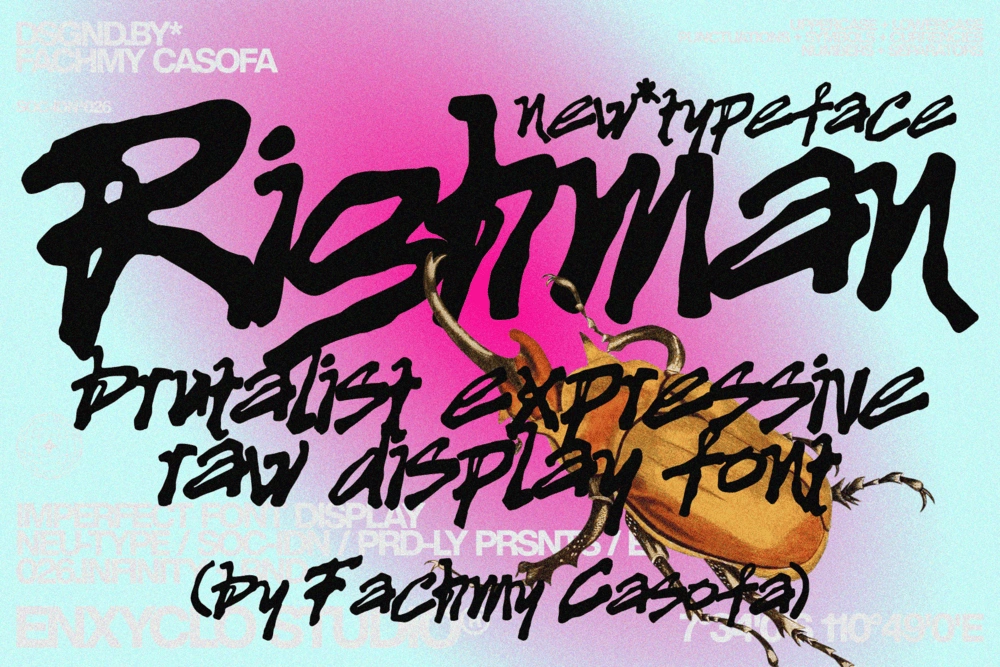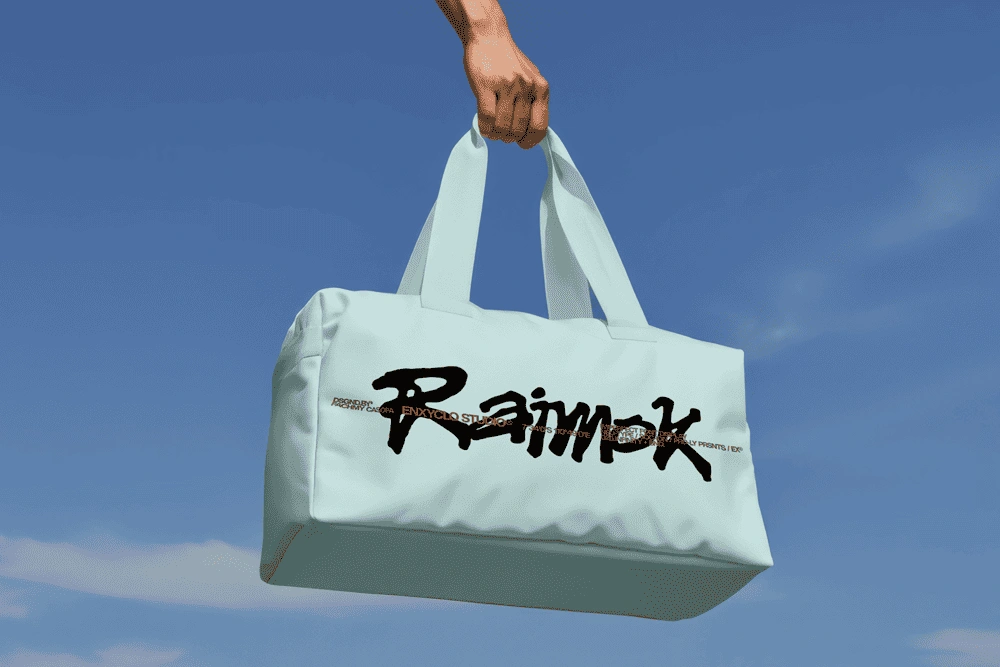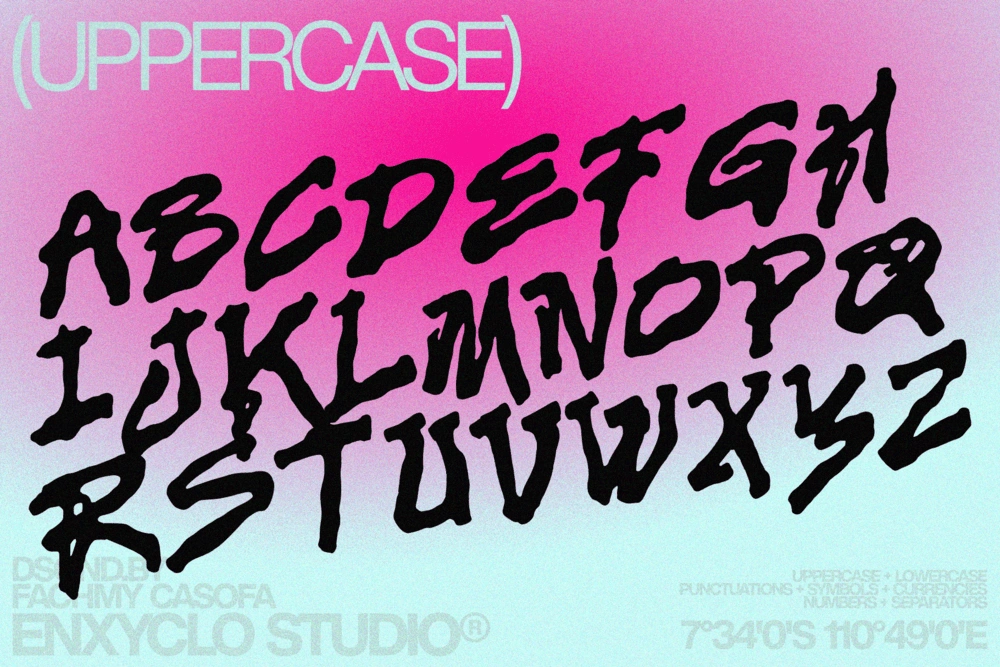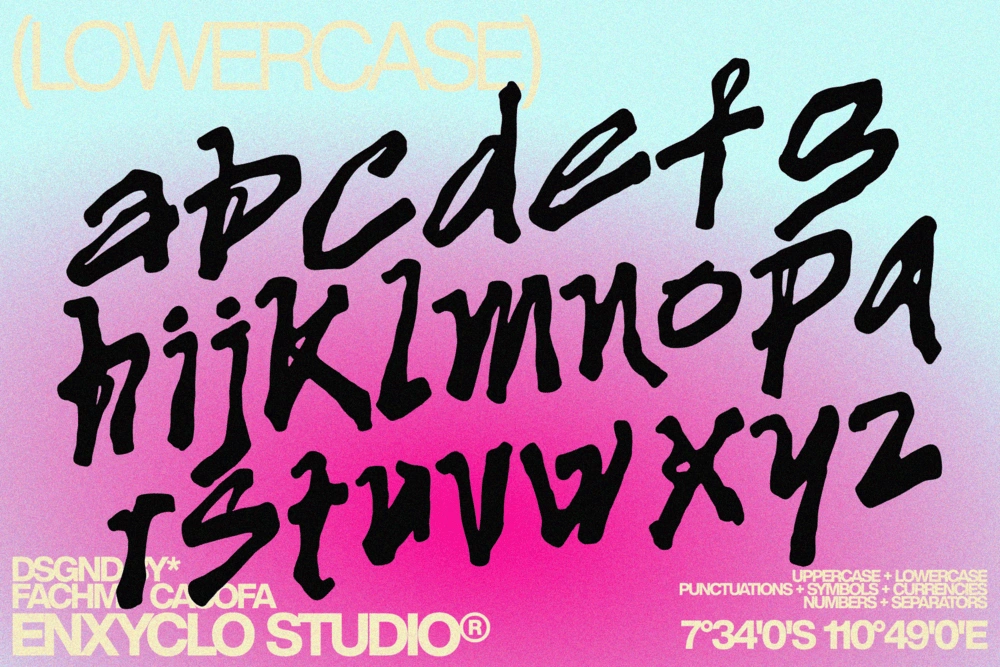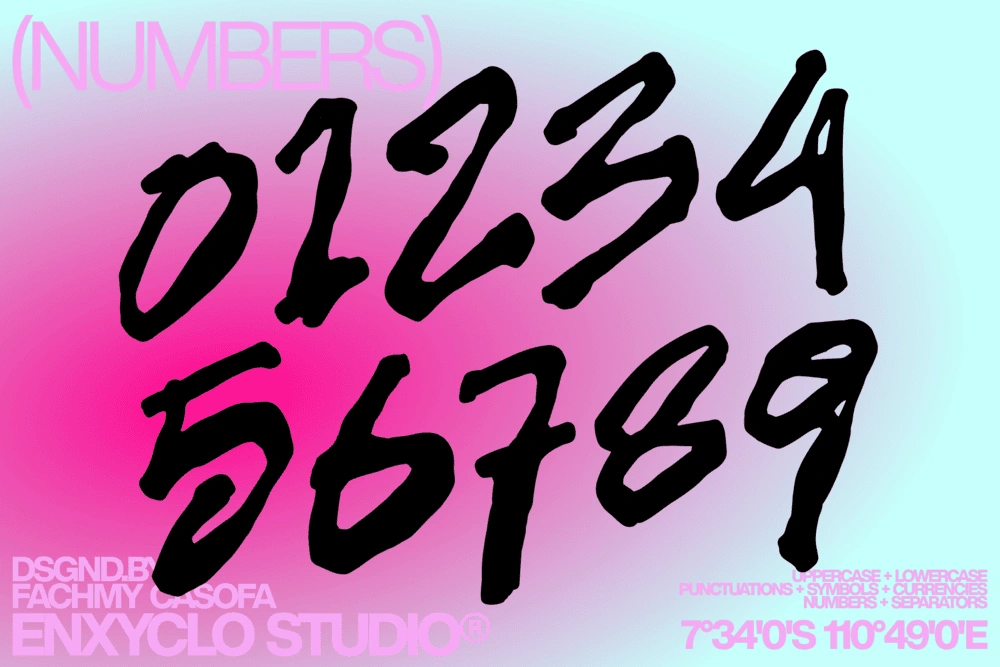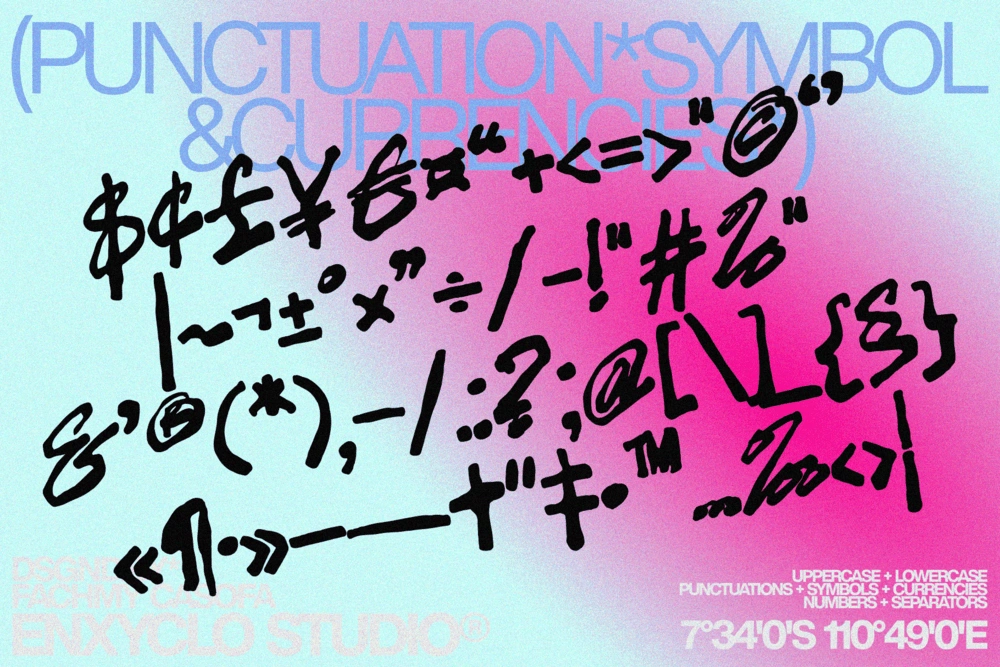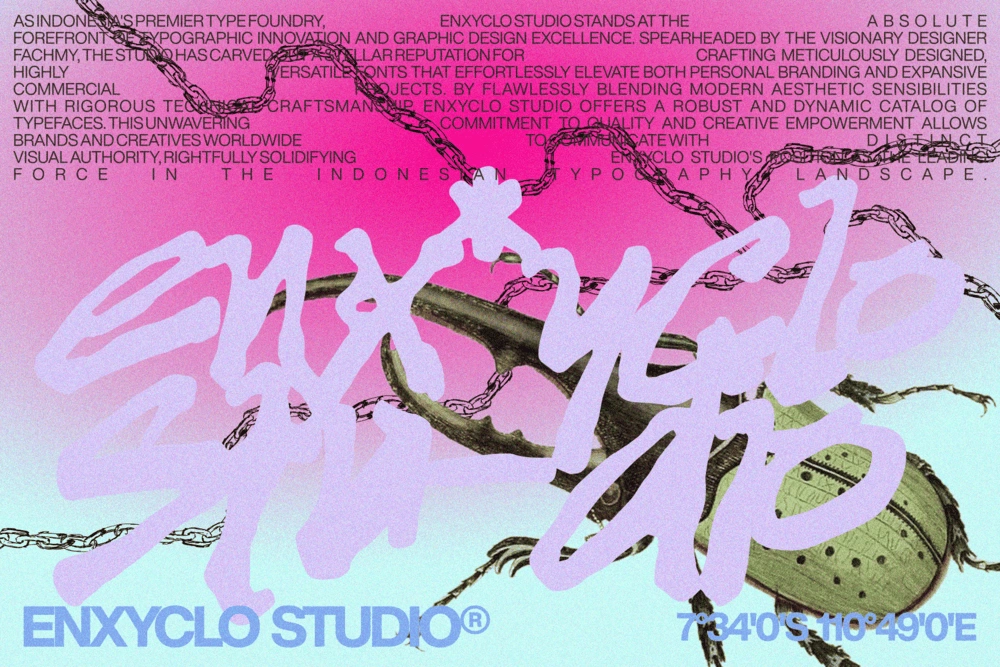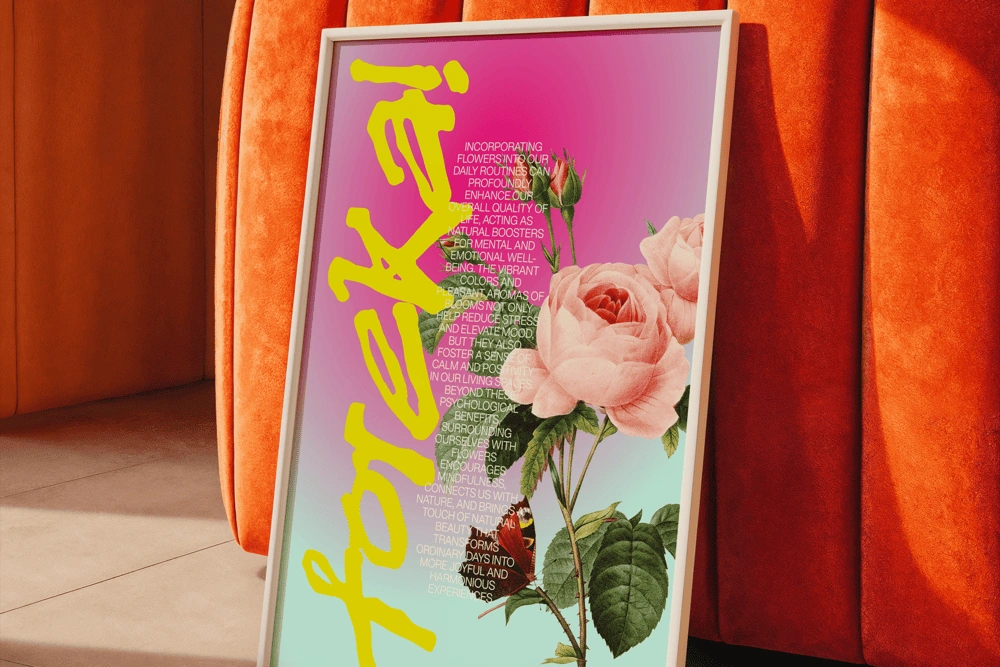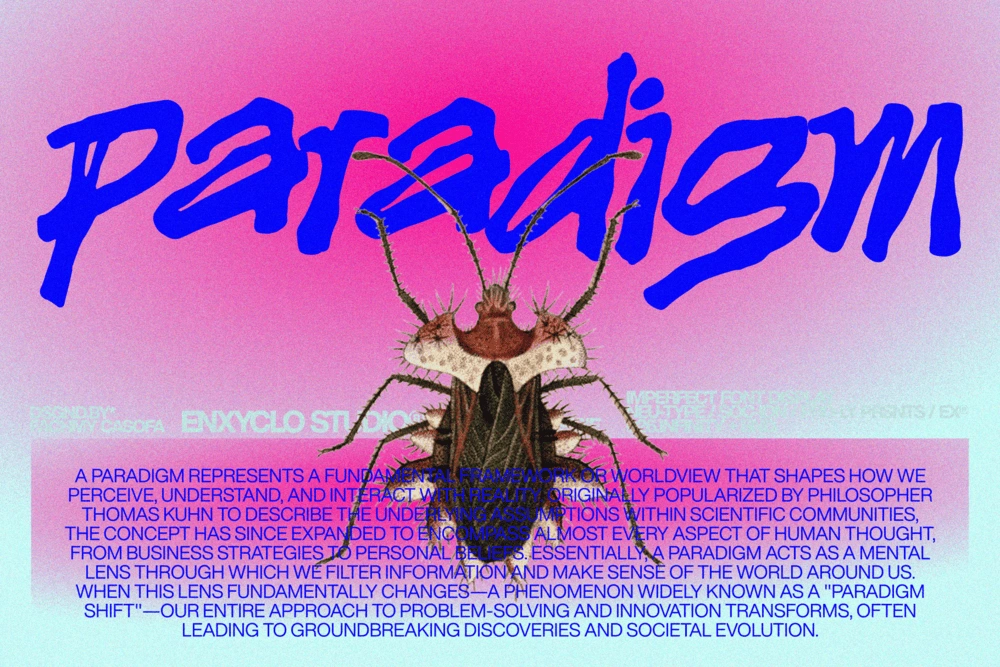
RIGHMAN is a raw imperfect handdrawn font created for modern brands that want to break away from polished, predictable typography. Inspired by urban culture, graffiti, grunge, and expressive brush lettering, it brings a gritty handmade energy to every word. Its rough edges, spontaneous strokes, and imperfect details create a bold visual character that feels authentic, rebellious, and unapologetically creative.
Blending handdrawn and handwriting aesthetics with a strong contemporary structure, RIGHMAN delivers the perfect balance between raw expression and modern design. Its energetic brush strokes and imperfect letterforms give headlines, logos, and visual identities a distinctive personality—ideal for projects that need to feel edgy, dynamic, and full of attitude. It carries the atmosphere of painted walls, underground events, industrial spaces, and fast-moving creative culture.
Whether you’re designing an event or festival poster, graffiti-inspired artwork, grunge campaign, bold logo, or modern brand identity, RIGHMAN adds instant character and visual impact. Its expressive forms are made to command attention while maintaining the handcrafted quality that makes contemporary typography feel human and authentic.
RIGHMAN is more than an imperfect brush font—it is a visual attitude. Rough, gritty, urban, and expressive, it gives designers and creative agencies the freedom to create branding and visuals that refuse to look ordinary.
FEATURE
• Uppercase letters
• Lowercase letters
• Punctuation marks
• Symbol set
• Currency symbols
PERFECT FOR
• Creative logo & logotype design
• Branding & brand identity
• Modern agency visuals
• Contemporary packaging
• Poster & headline design
• Creative campaigns & visual storytelling